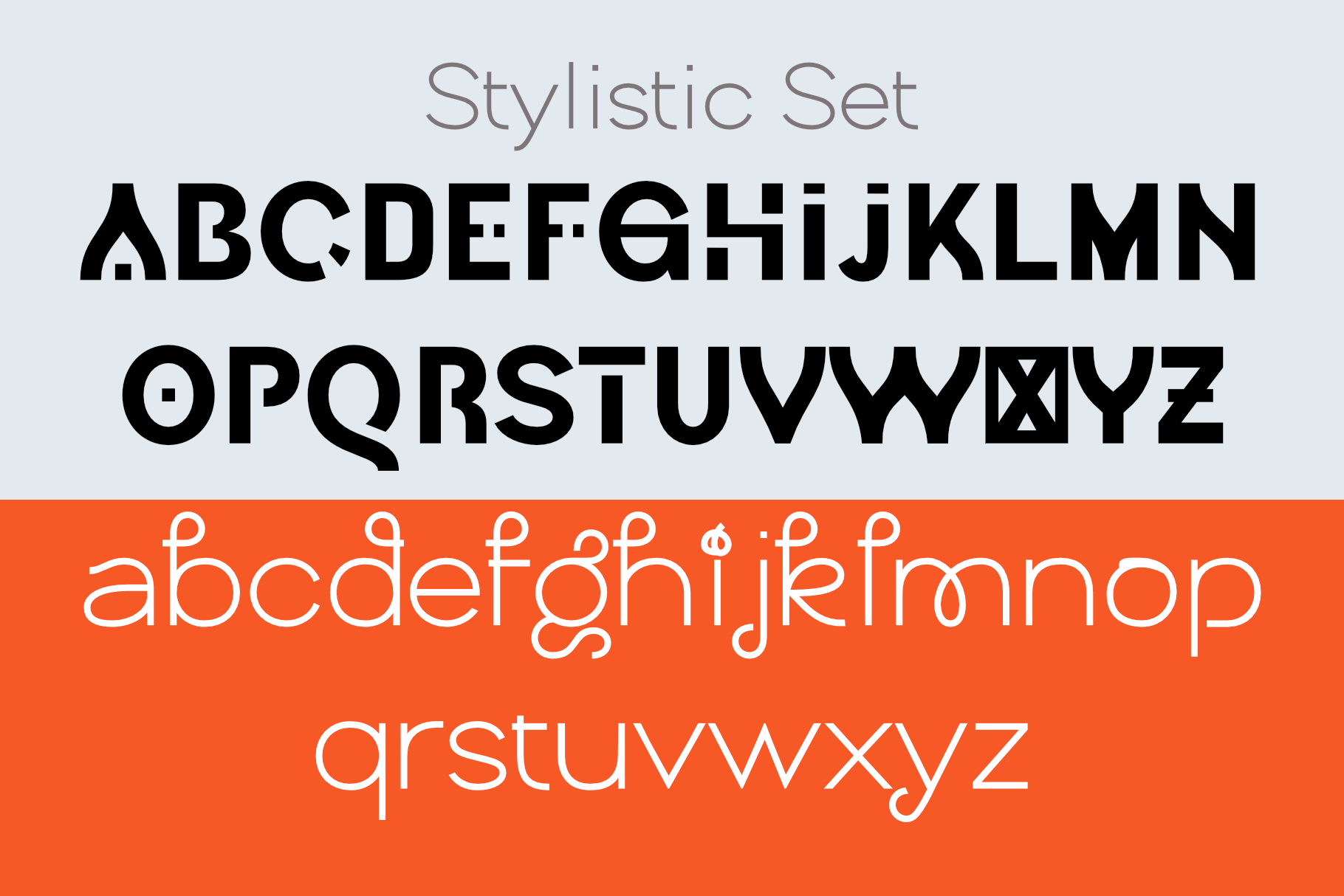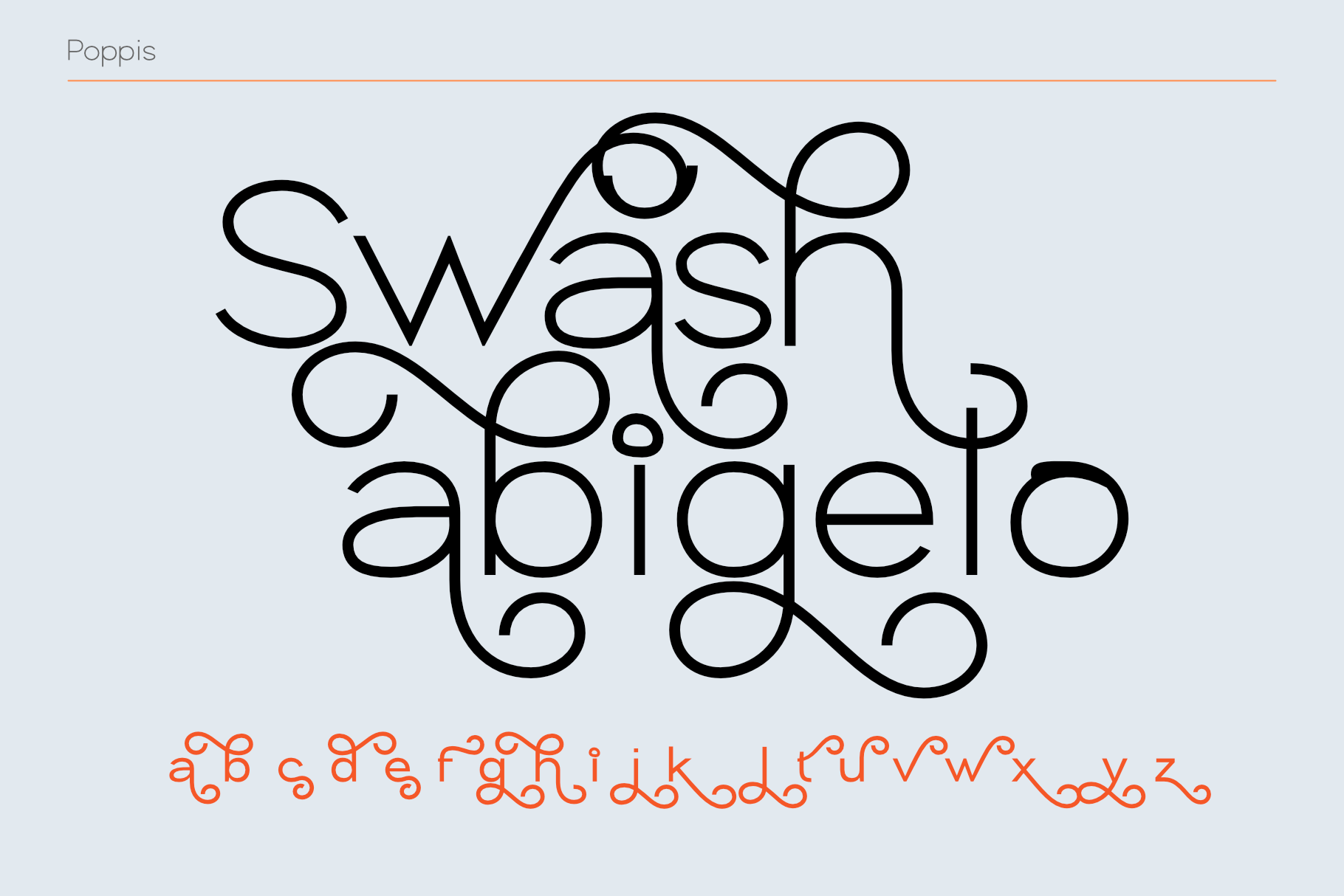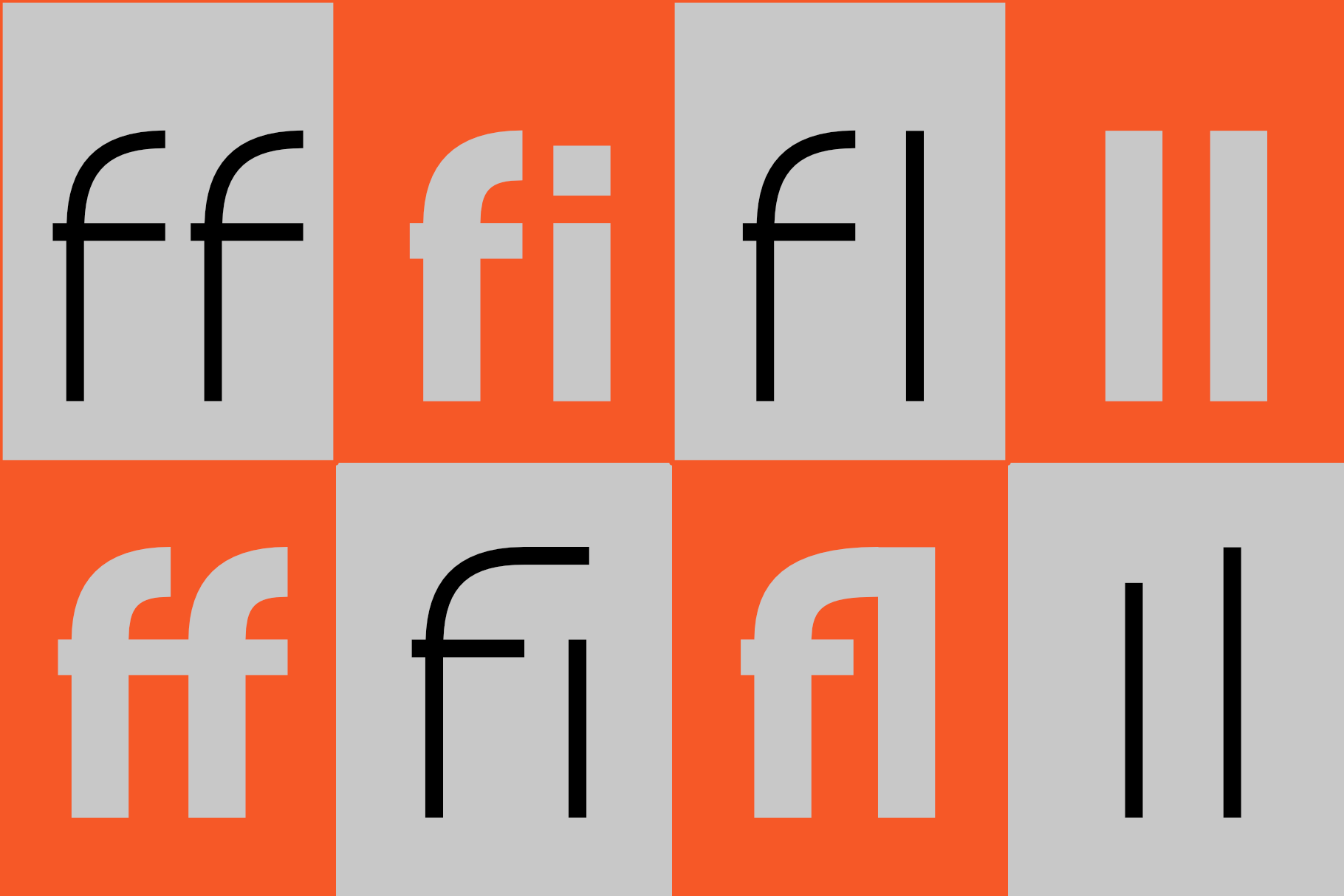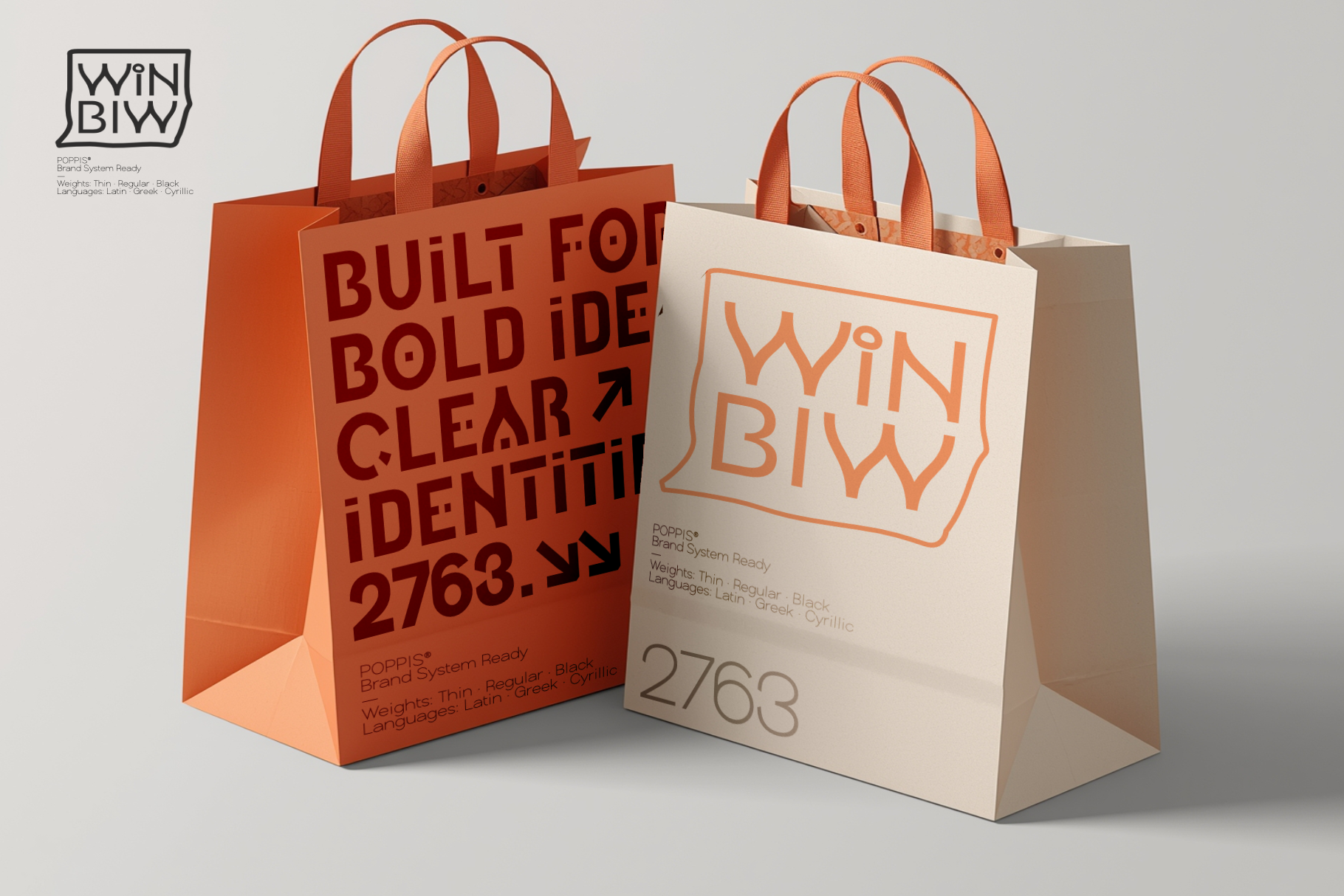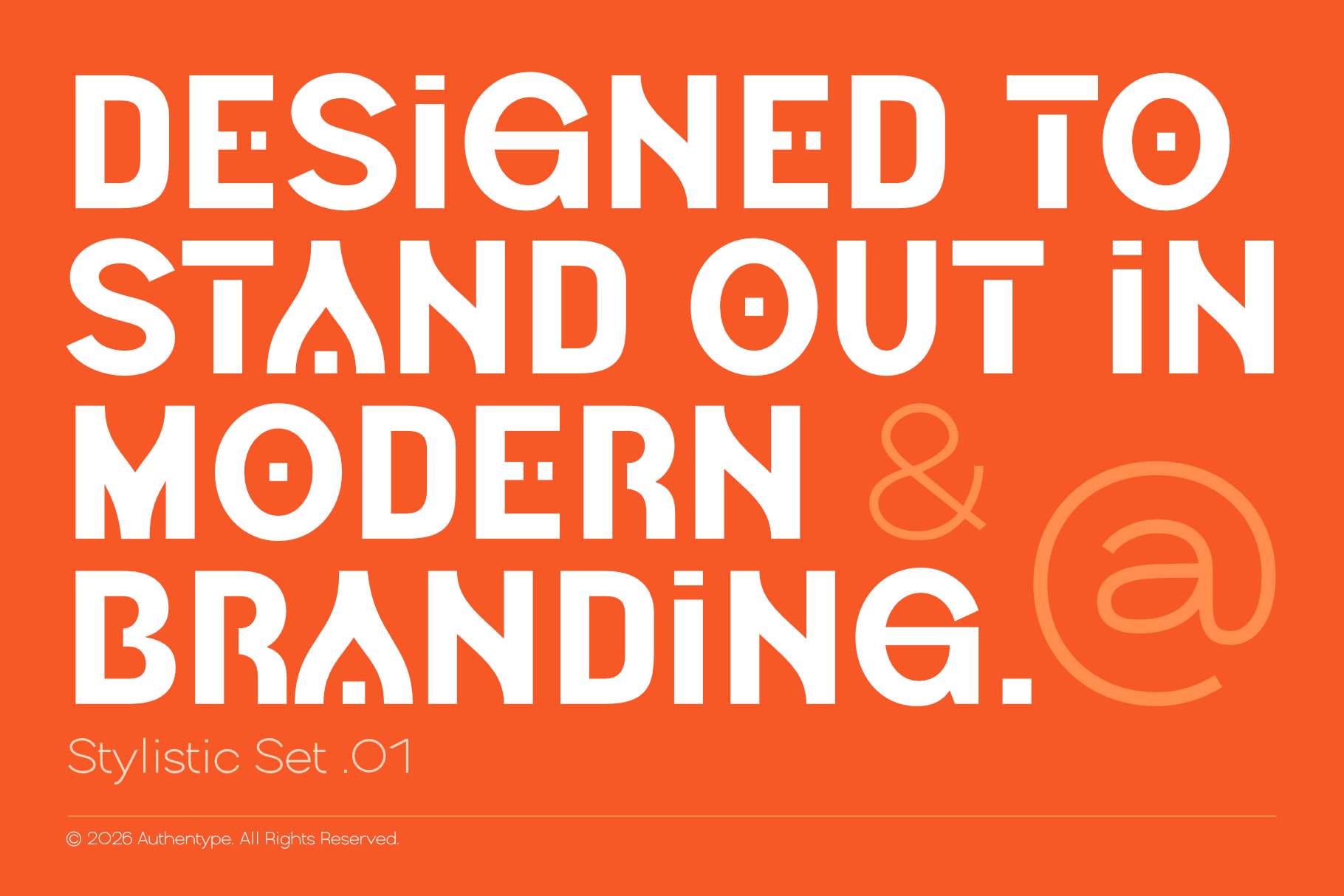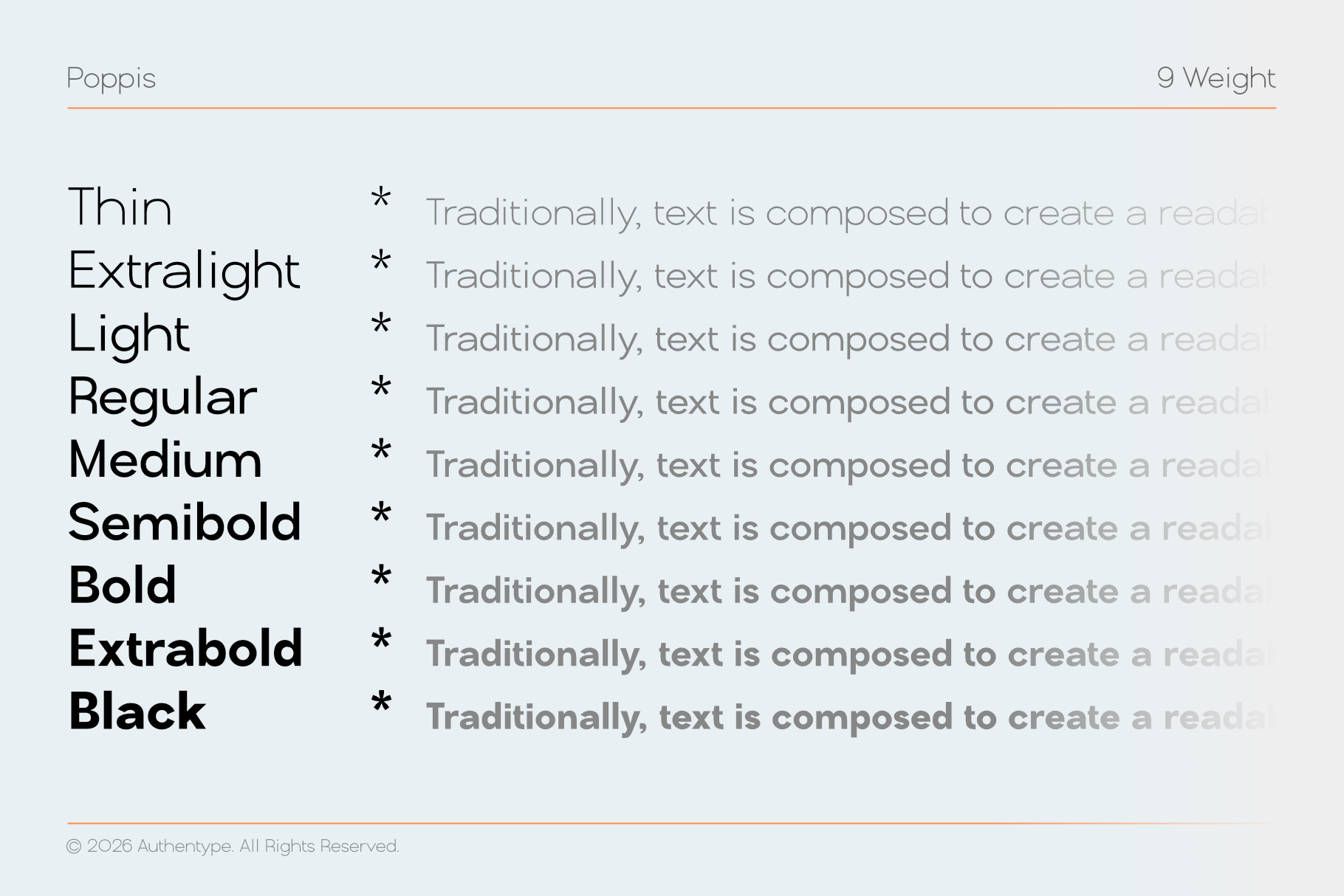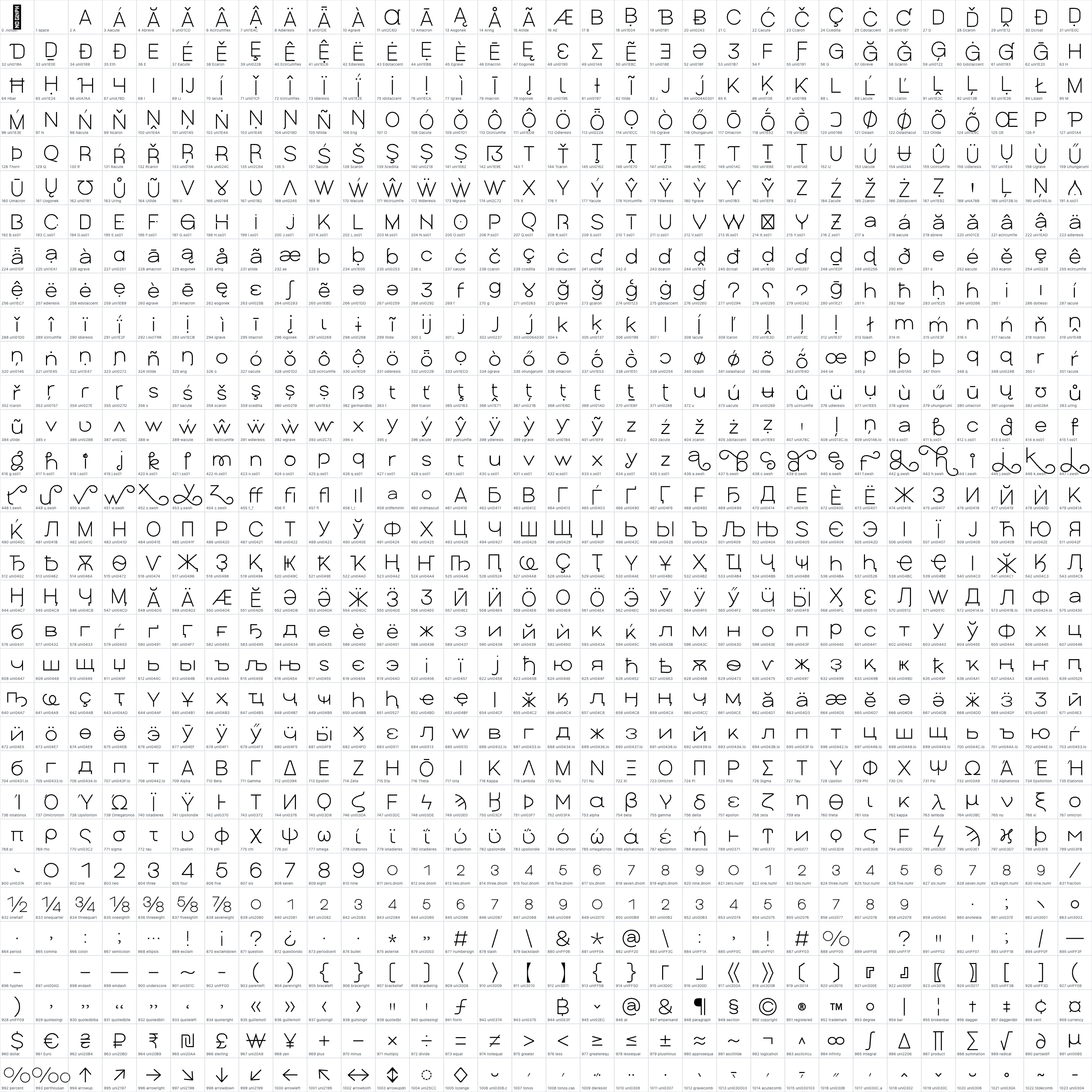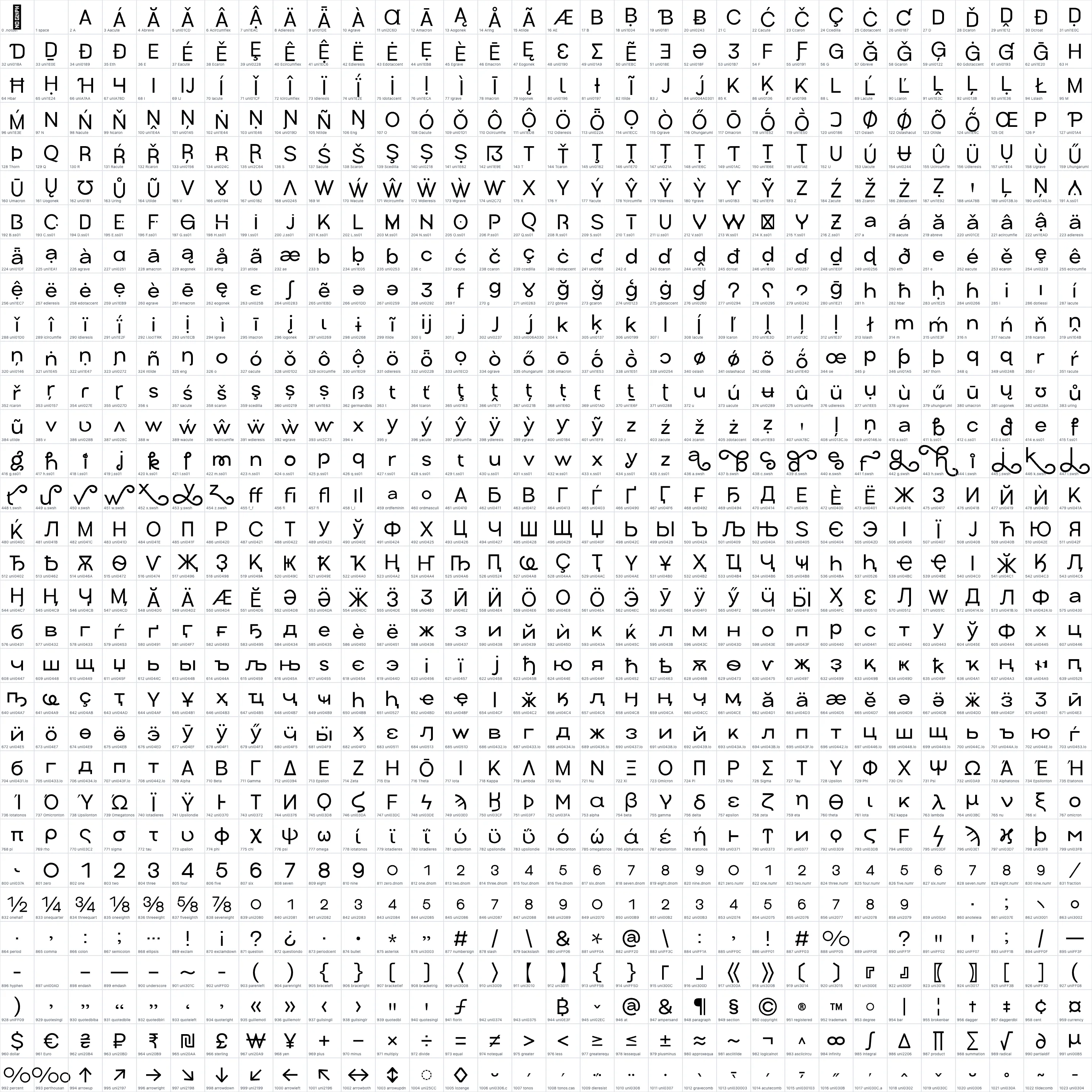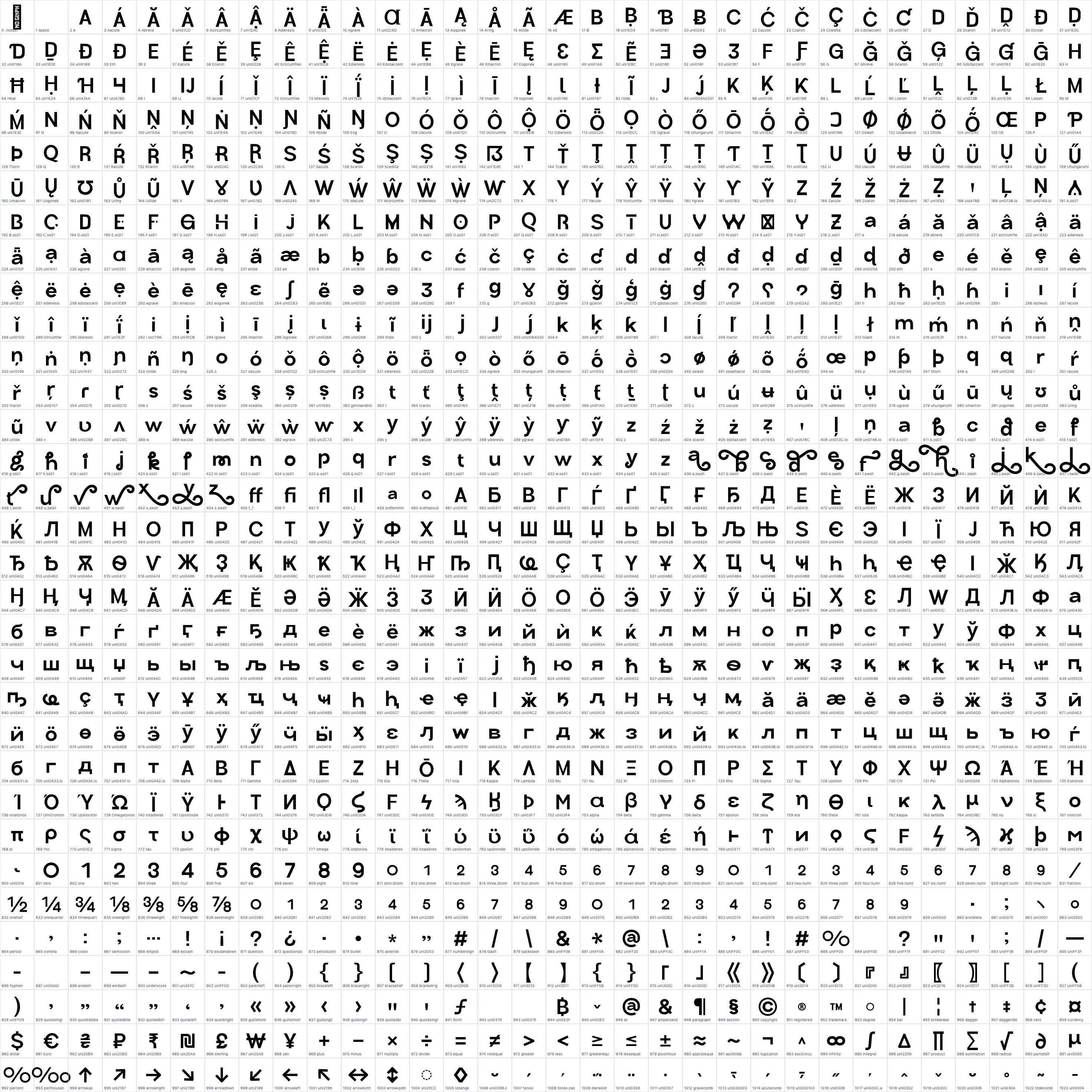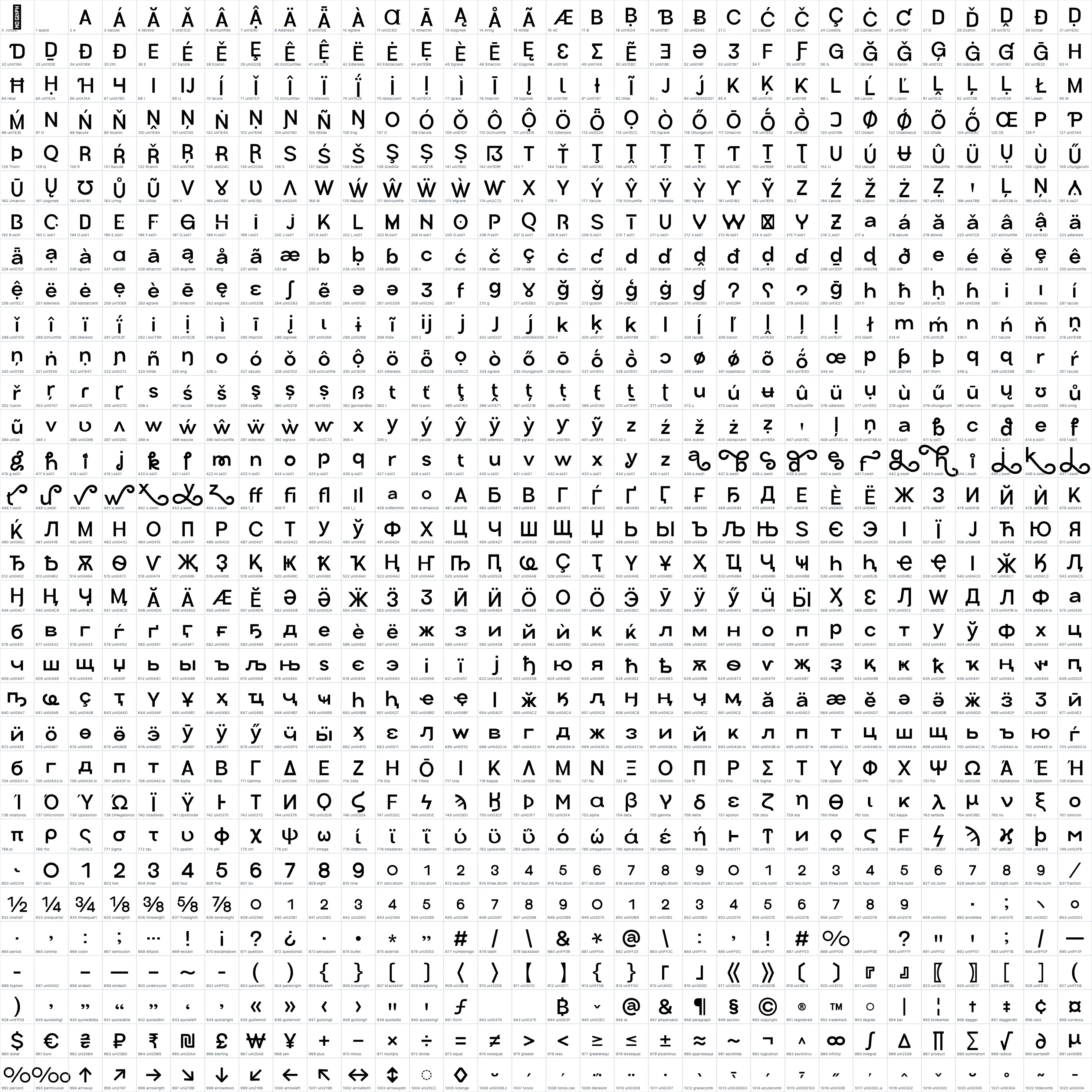
Poppis – Modern Geometric Sans Serif with Cyrillic
* Global Support: Seamlessly compatible with 127 languages, including Latin, Cyrillic, and Greek.
* Advanced OpenType Features: Equipped with distinctive Stylistic Sets and decorative swashes that effortlessly transform standard text into logo artwork.
* Super-Complete Glyphs: Includes eight ligatures, mathematical symbols, a diverse array of world currencies (including Bitcoin ₿), and fractions.
Ideal Applications:
* Contemporary branding
* Futuristic logo design
* Clean UI/UX
* Premium product packaging